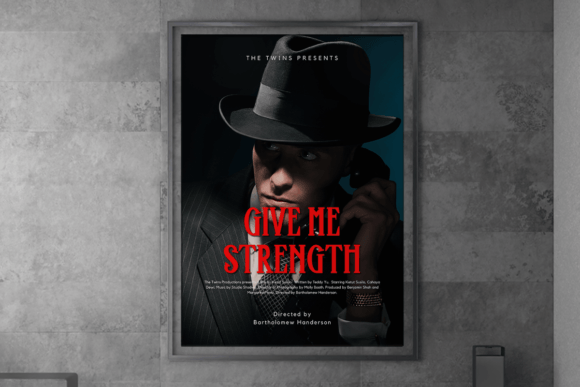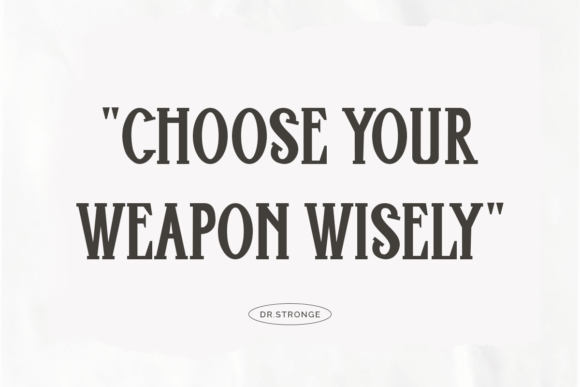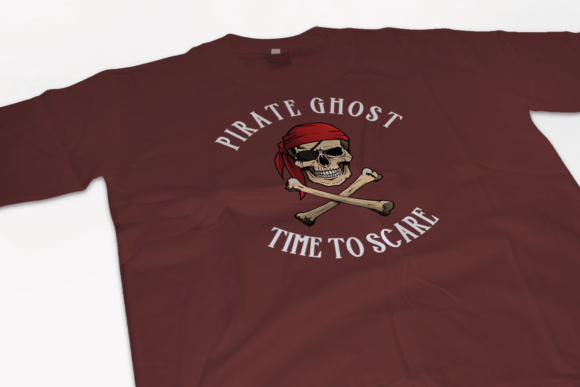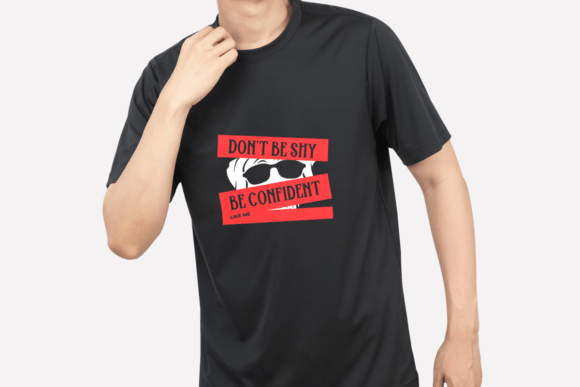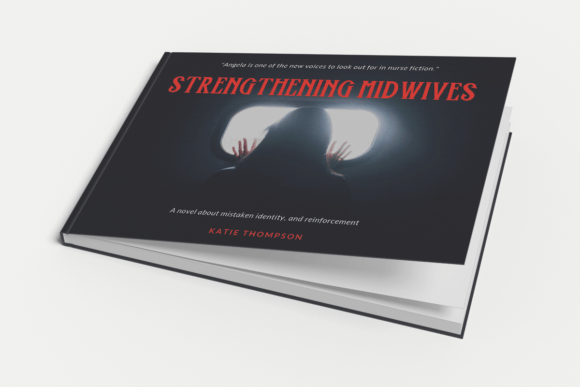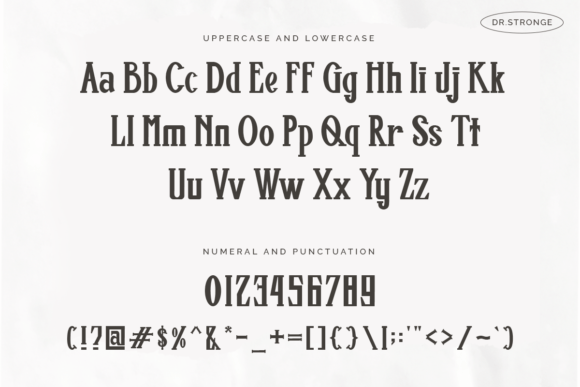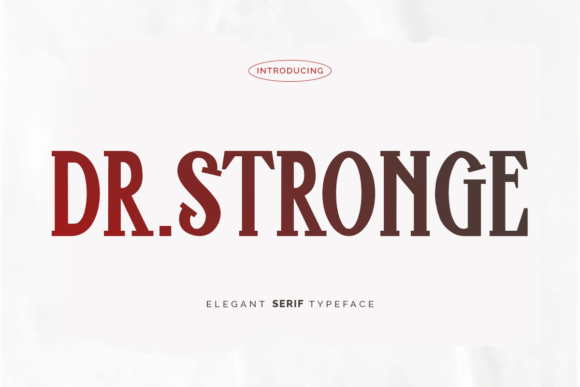
Discover the Elegance of Dr.Stronge Font: Elevate Your Designs with Sophistication
In the vast universe of typography, where fonts are the cornerstone of design, Dr.Stronge emerges as a beacon of professionalism and elegance. This versatile font is not just a typeface; it’s a design statement that can transform your creative projects into masterpieces. Whether you’re a seasoned designer or a crafting enthusiast, Dr.Stronge is about to become your go-to font for a myriad of design themes.
The Essence of Dr.Stronge Font
Dr.Stronge boasts a professional style without losing its elegant touch. This balance is crucial for designers and crafters who aim to create visually appealing and sophisticated works. The font’s clean lines, precise curves, and balanced spacing make it a perfect candidate for a wide range of applications.
One of the standout features of Dr.Stronge is its incredible versatility. It’s a font that can seamlessly fit into various design themes, including:
- Cover Poster Designs: Make a bold statement with Dr.Stronge. Its elegant yet strong presence ensures your poster stands out.
- T-Shirt Designs: Whether it’s for a brand, an event, or a personal project, Dr.Stronge adds a touch of sophistication to your apparel designs.
- Quotes: Give your quotes the emphasis they deserve with Dr.Stronge. The font’s readability and style ensure your message is delivered with impact.
- Book Cover Designs: For authors and publishers, Dr.Stronge offers a professional and elegant look that can enhance the appeal of your book covers.
- Professional Looking Designs: From business cards to brochures, Dr.Stronge can elevate your professional designs with its refined aesthetic.
Why Choose Dr.Stronge?
Choosing Dr.Stronge for your design projects comes with numerous benefits:
- Readability: Dr.Stronge is designed to be clear and readable, making it perfect for both digital and print media.
- Flexibility: It can be used in a variety of contexts, from formal to casual, without losing its appeal.
- Elegance: The font adds a touch of elegance to any design, making it suitable for projects that require a sophisticated look.
- Easy to Pair: Dr.Stronge can be easily paired with other fonts to create a unique and harmonious design.
Tips for Using Dr.Stronge Effectively
To maximize the potential of Dr.Stronge, consider the following tips:
- Experiment with Sizes: Dr.Stronge looks great in various sizes. Experiment to find the perfect size for your design.
- Play with Colors: While the font itself is elegant, the right color choice can enhance its appearance. Consider contrasting colors to make your text pop.
- Combine with Images: Dr.Stronge works beautifully with images. Ensure your text complements the visuals to create a cohesive design.
Dr.Stronge is more than just a font; it’s a design companion that can elevate your projects to new heights of sophistication and professionalism. Its versatility, elegance, and readability make it an ideal choice for designers and crafters across various platforms. Whether you’re working on a poster, a book cover, or a professional document, Dr.Stronge is sure to make a lasting impression. Embrace the elegance of Dr.Stronge and discover a world of limitless design possibilities.